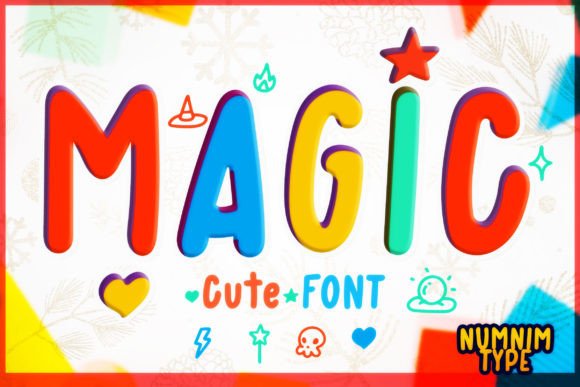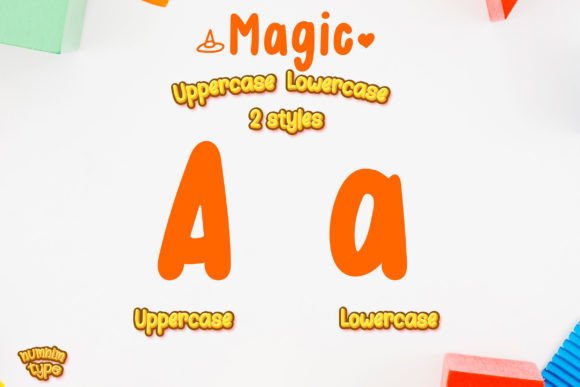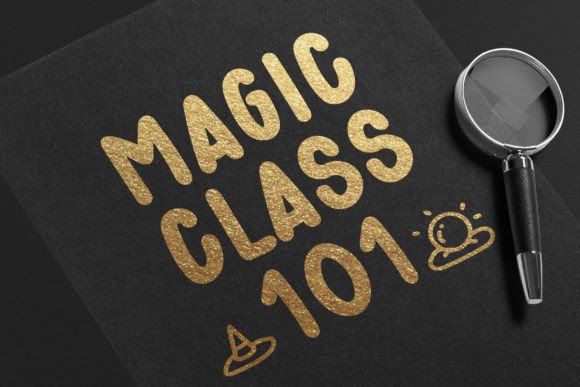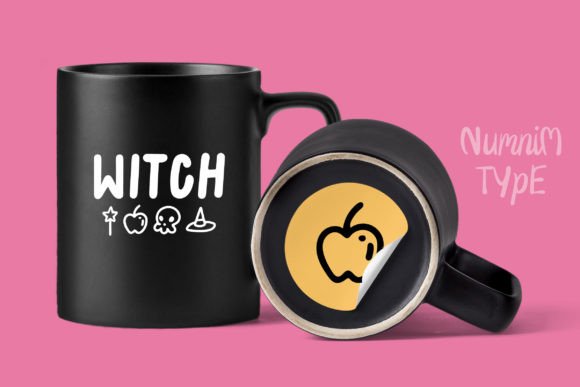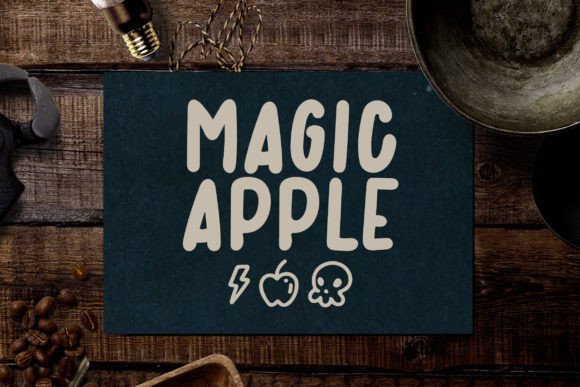
About Magic Font
Magic is a cute and uniquely crafted handwritten font. Its fun and playful characters make it the perfect font for stickers, mugs, t-shirts, ornaments, Halloween event cards, and more! This font is PUA encoded which means you can access all glyphs and swashes with ease!